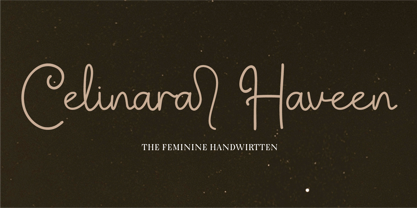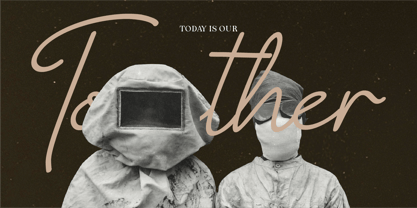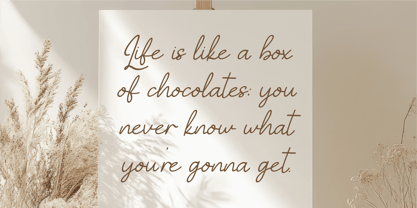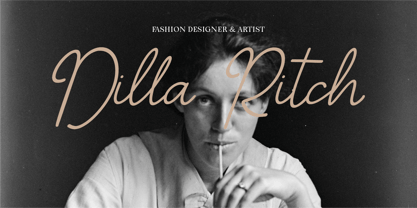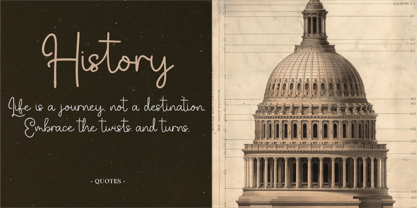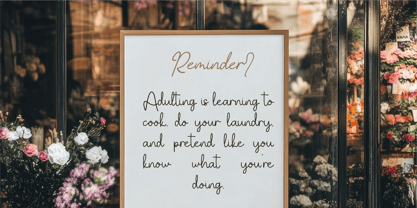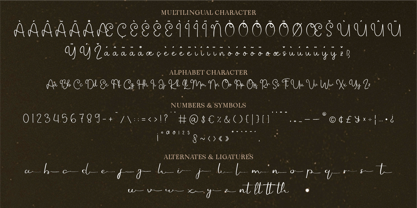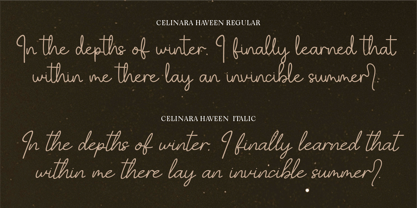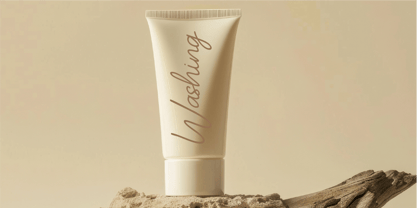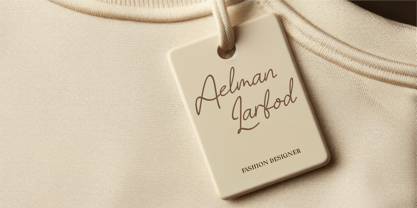
CF Celinara Haveen
by Indotype
The CF Celinara Haveen Font Family was designed by Gilang Mei Nugraha, Frederik Aristaputra and published by Indotype. CF Celinara Haveen contains 2 styles and family package options. More about this family
Celinara Haveen is an exquisite handwritten font that embodies femininity, authenticity, and elegance. With its gentle monoline strokes and soft, flowing curves, this typeface captures the essence of a handwritten signature, bringing a personal and sophisticated touch to every design. Perfectly designed to evoke warmth and charm, Celinara Haveen feels natural yet polished, making it ideal for wedding invitations, feminine branding, social media posts, logos, and more. This font is versatile and works beautifully across projects that aim to convey a delicate yet professional tone. Its authentic appeal and stylish personality make it an excellent choice for creative designs that stand out while maintaining a soft, approachable feel.
- Standard Character A-Z, a-z, 0-9, Punctuation & symbols
- Regular & Italic Style
- Multilingual Support
- Include Alternates and Ligatures
Designers: Gilang Mei Nugraha, Frederik Aristaputra
Foundry: Indotype